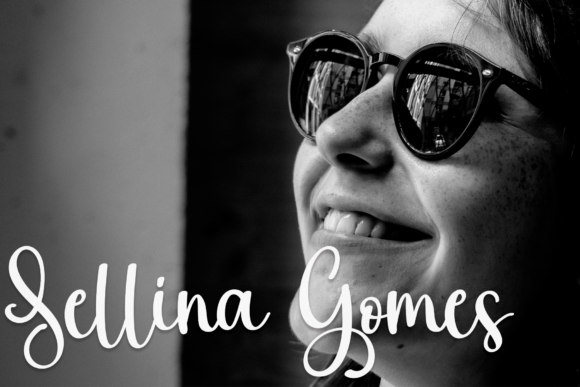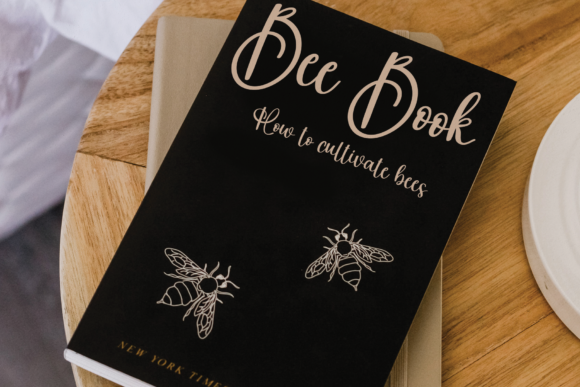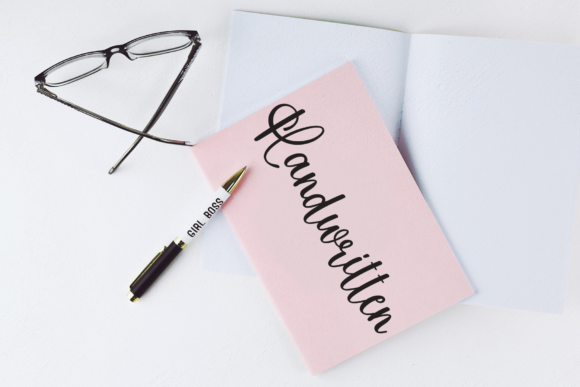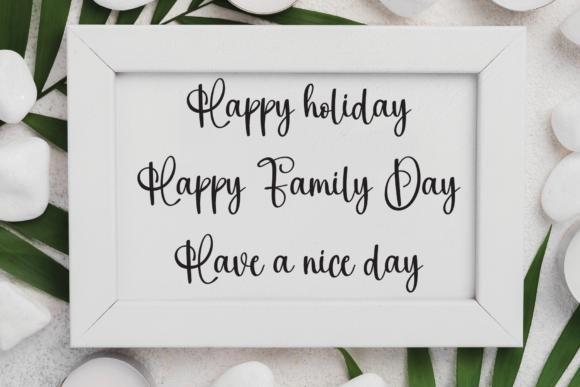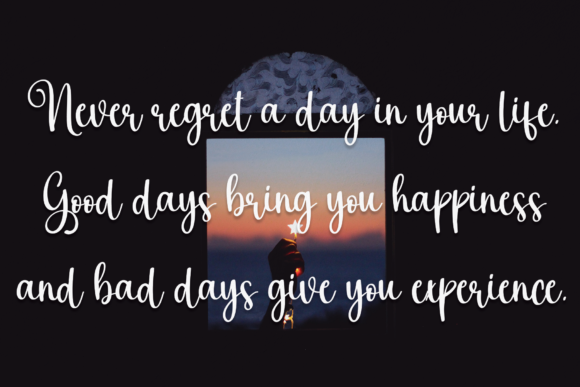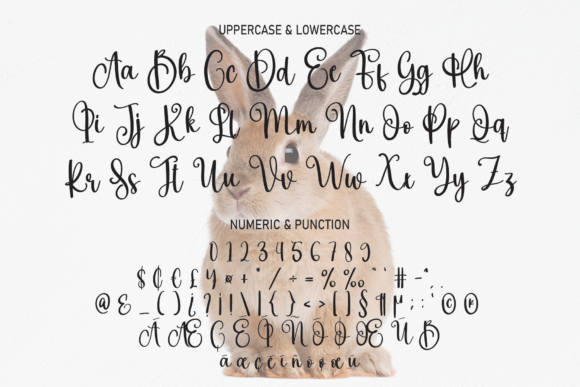
Meet Your New Best Friend in Script Fonts: Bunny Font
Have you ever been working on a project and suddenly, a spark of inspiration hits you? You envision the perfect combination of colors, the perfect texture, and the perfect font – one that adds a touch of elegance and whimsy to your design. For many designers, this moment is what drives creativity and pushes the boundaries of their work. And for those who crave a script font that’s both fashionable and delicate, Bunny Font is here to make that vision a reality.
Bunny Font is a versatile script font that’s perfect for logos, branding projects, labels, photography, watermarks, and special events. Its beauty lies in its ability to add a touch of sophistication to any project, making it a valuable asset for designers who want to create stunning visual content. Whether you’re working on a wedding invitation or a fashion brand’s logo, Bunny Font is sure to bring your design to life.
Bunny Font Key Features
- Unique Characteristics: Bunny Font features a unique, whimsical design with a playful bunny character integrated into the font. This adds a touch of personality and fun to any text-based design.
- Character Set: Bunny Font includes a comprehensive character set, including uppercase and lowercase letters, numbers, punctuation marks, and special characters, making it suitable for use in a wide range of applications.
Bunny Font Review
I recently had the chance to work with the Bunny Font, and I have to say, it’s a mixed bag. ✨ On the plus side, I love the playful and whimsical feel it brings to a design. It’s perfect for kid-friendly projects, branding, or anything that needs a touch of cuteness. The font is also highly customizable, with a wide range of styles and weights to choose from.
- ✨ Whimsical and playful feel
- ✨ Highly customizable
- ✨ Perfect for kid-friendly projects
However, there are some limitations to consider. ⚠️ The font can be a bit too cartoonish for more serious or professional projects, and it may not be the best choice for body text or large blocks of text. Additionally, some users may find the font’s irregularities and quirks to be distracting or hard to read.
- ⚠️ May be too cartoonish for serious projects
- ⚠️ Not ideal for body text or large blocks of text
- ⚠️ Irregularities and quirks may be distracting
Overall, I think the Bunny Font is a great choice for the right project. It’s a fun and playful font that can add a lot of personality to a design. However, it’s not a one-size-fits-all solution, and designers should carefully consider the project’s tone and needs before using it.
Tips for Getting the Most Out of Bunny Font
For best results, use Bunny Font in conjunction with cute and playful graphics or illustrations.
Consider using Bunny Font for titles, headings, or short phrases to add a whimsical touch to your design.
Bunny Font is ideal for:
Children’s party invitations or decorations
Food or beverage branding (e.g. cute dessert shops)
Playful advertising campaigns